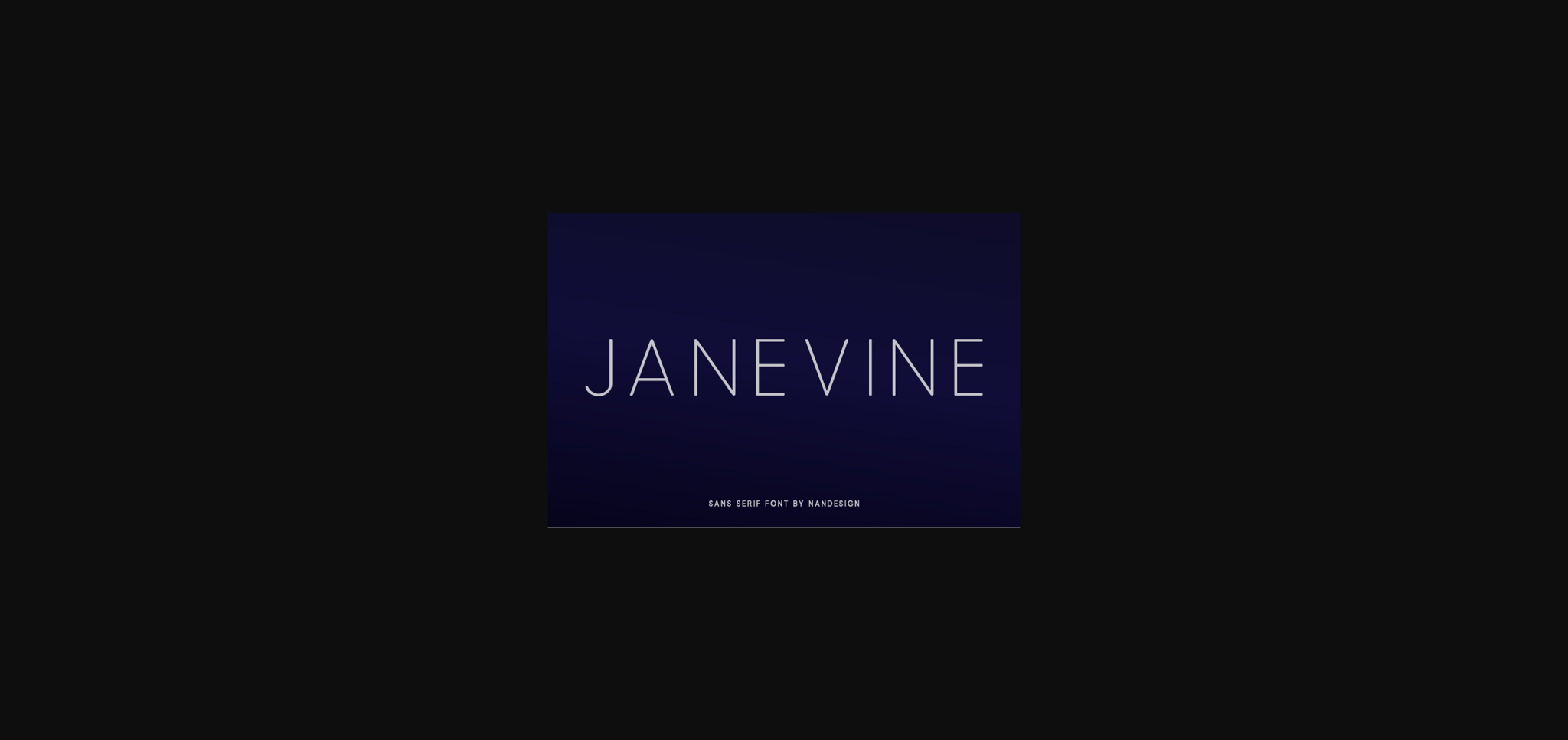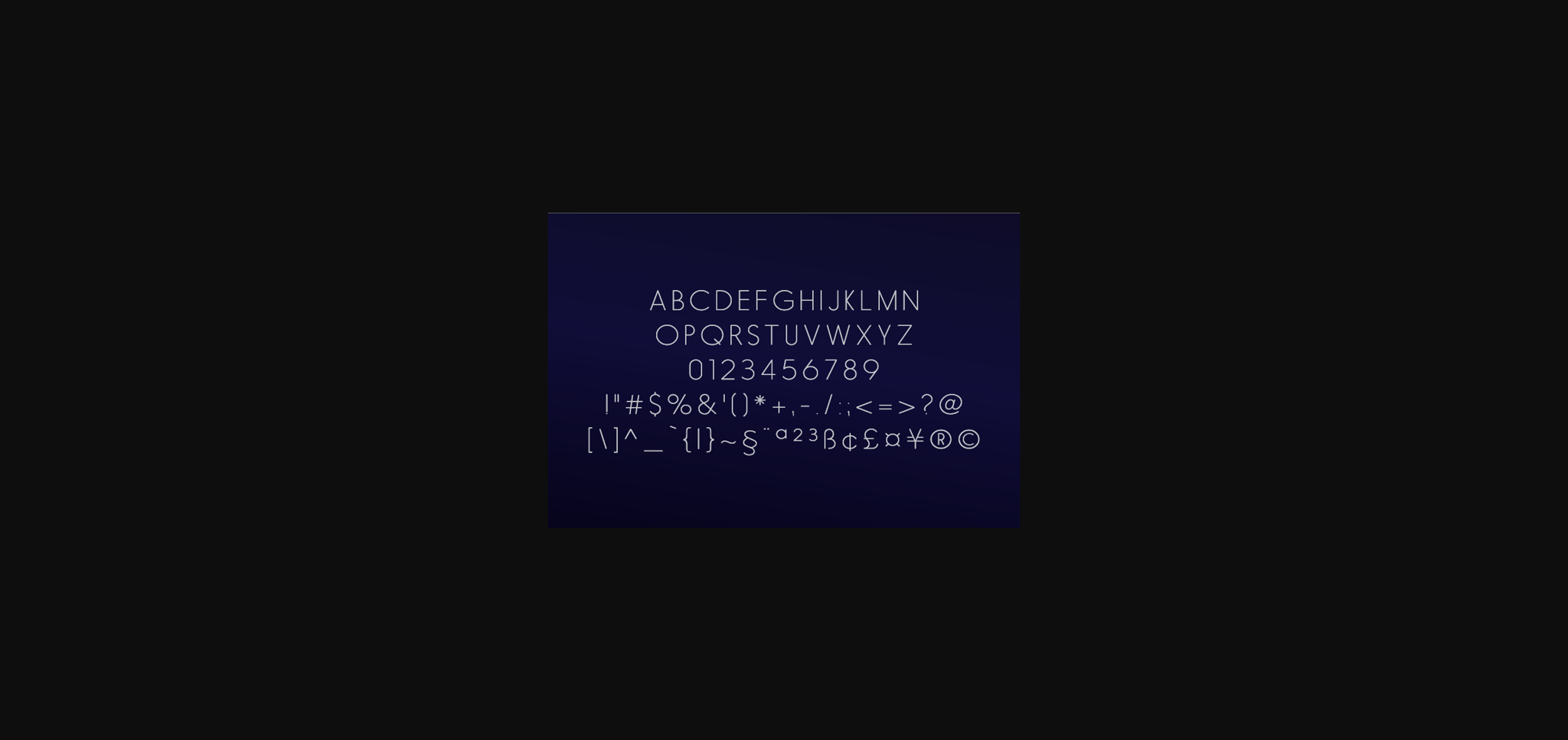
Janevine Font
About Janevine Font
Janevine is an elegant, round lettered sans serif font. It can easily be matched to an incredibly large set of projects, so add it to your creative ideas and notice how it makes them come out of the ordinary!